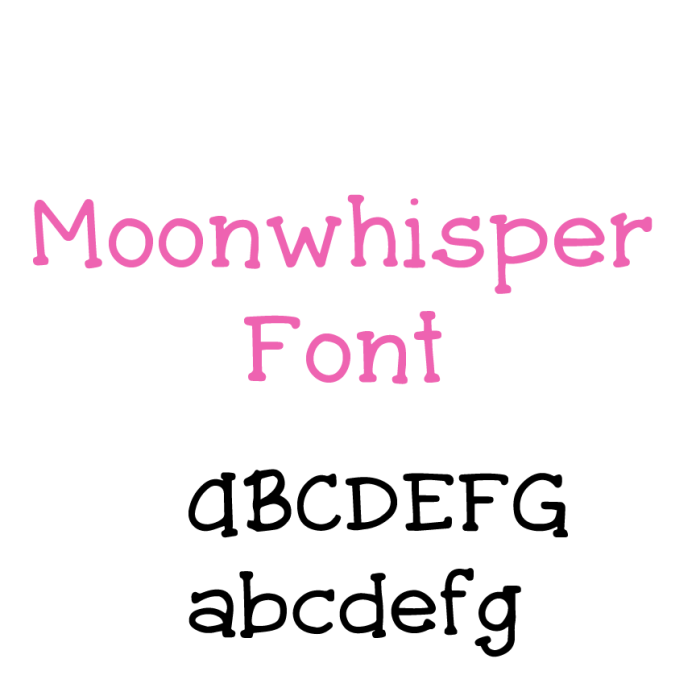
Say hello to Moonwhisper, the cutest serif font with a dash of whimsy! With its soft curves, playful serifs, and charming personality, Moonwhisper is perfect for sweet and stylish designs. Whether you're creating adorable invitations, heartfelt quotes, branding, or social media graphics, this font adds a touch of magic to every project. Its blend of elegance and fun makes it ideal for crafters, creatives, and dreamers alike. Let your words dance with warmth and charm—add Moonwhisper to your font collection today and bring a sprinkle of sweetness to all your designs!